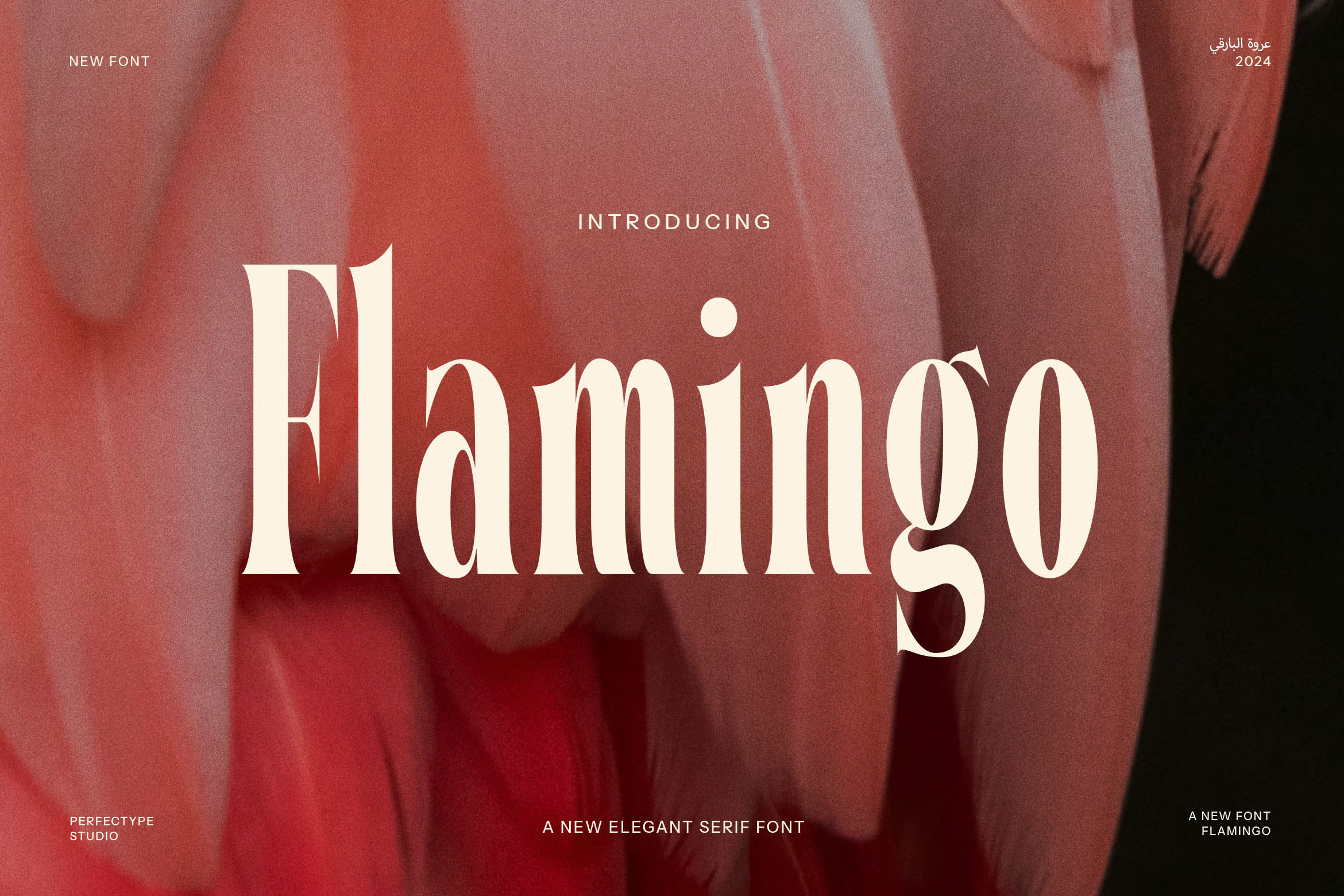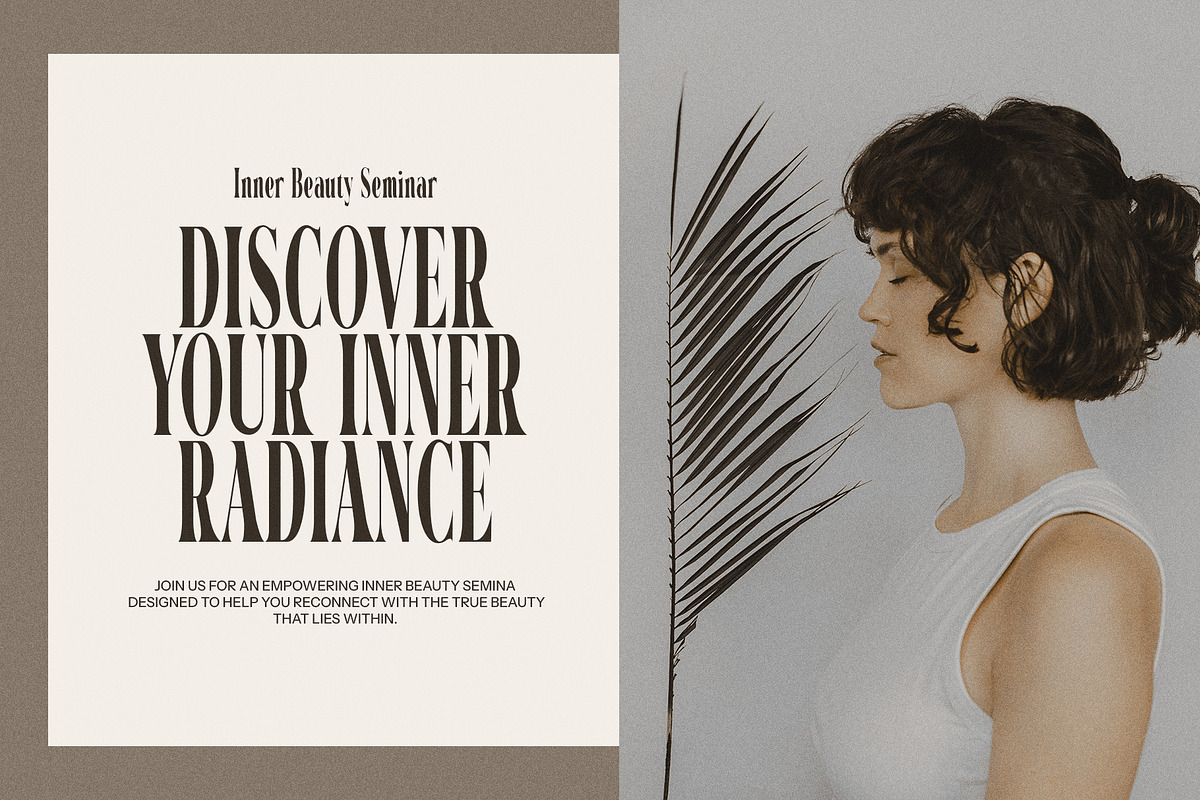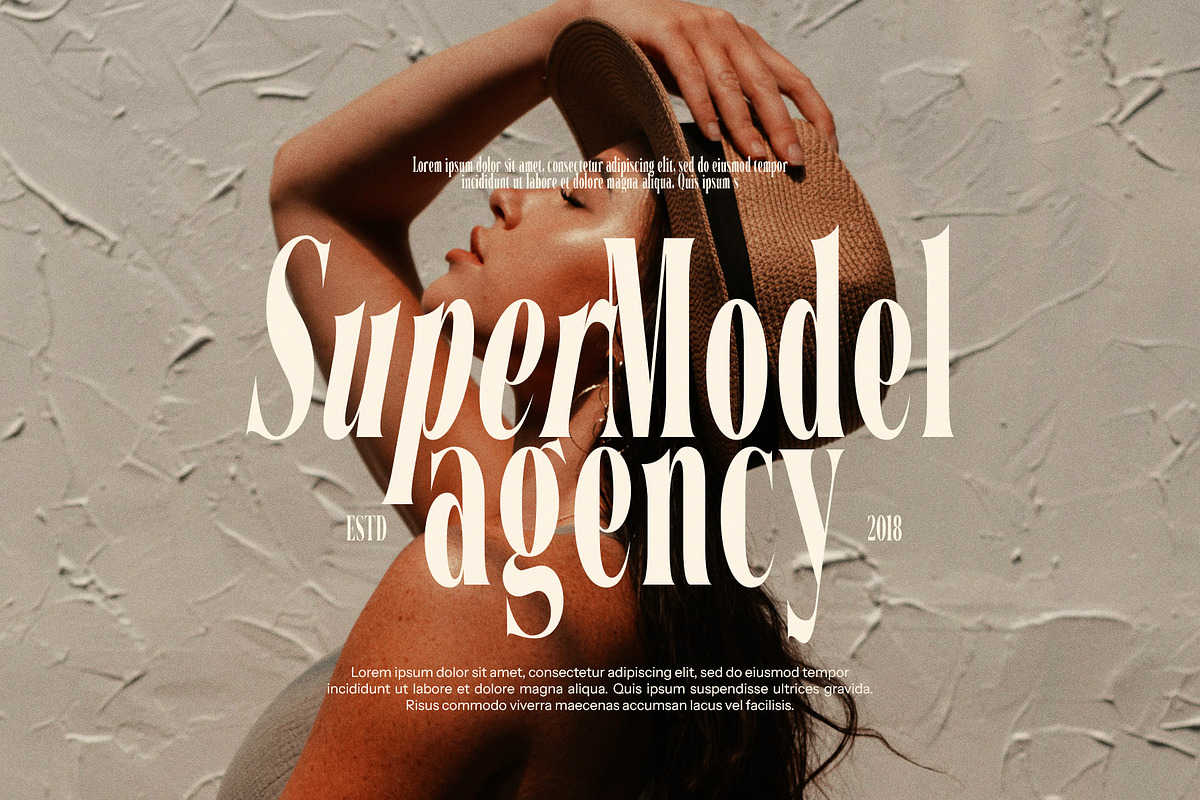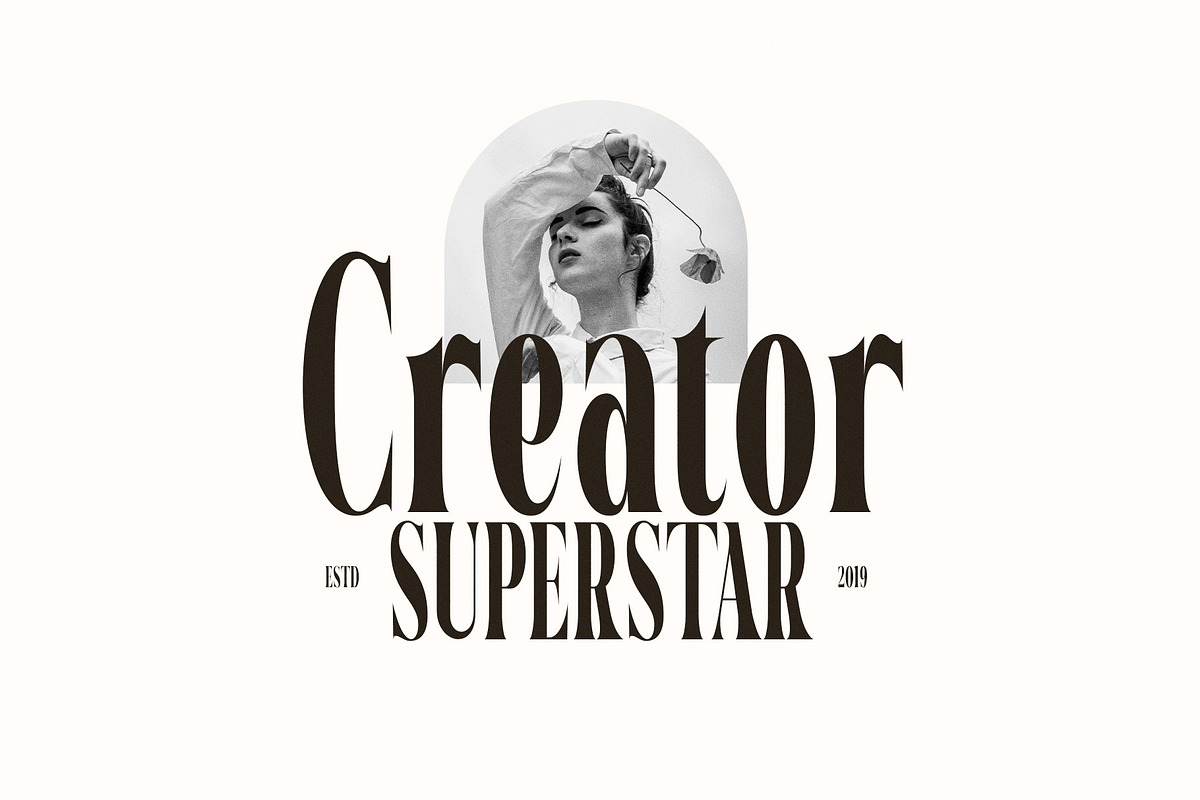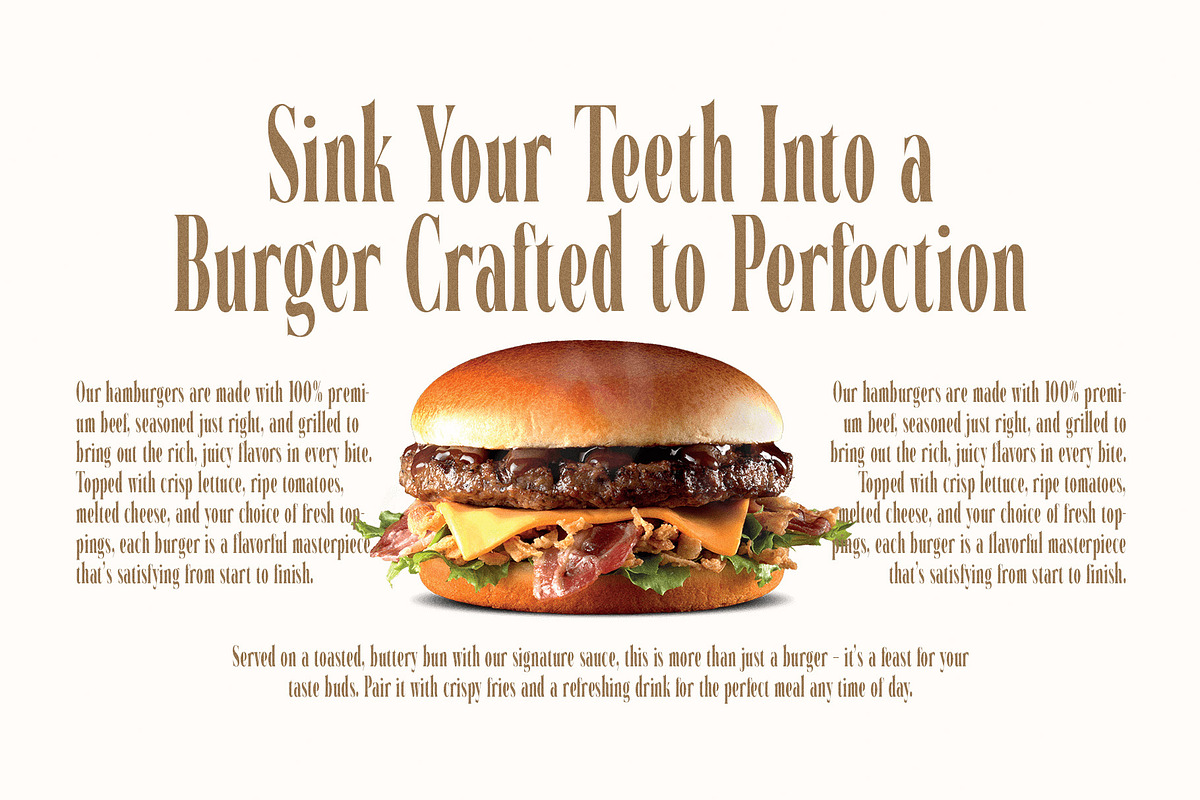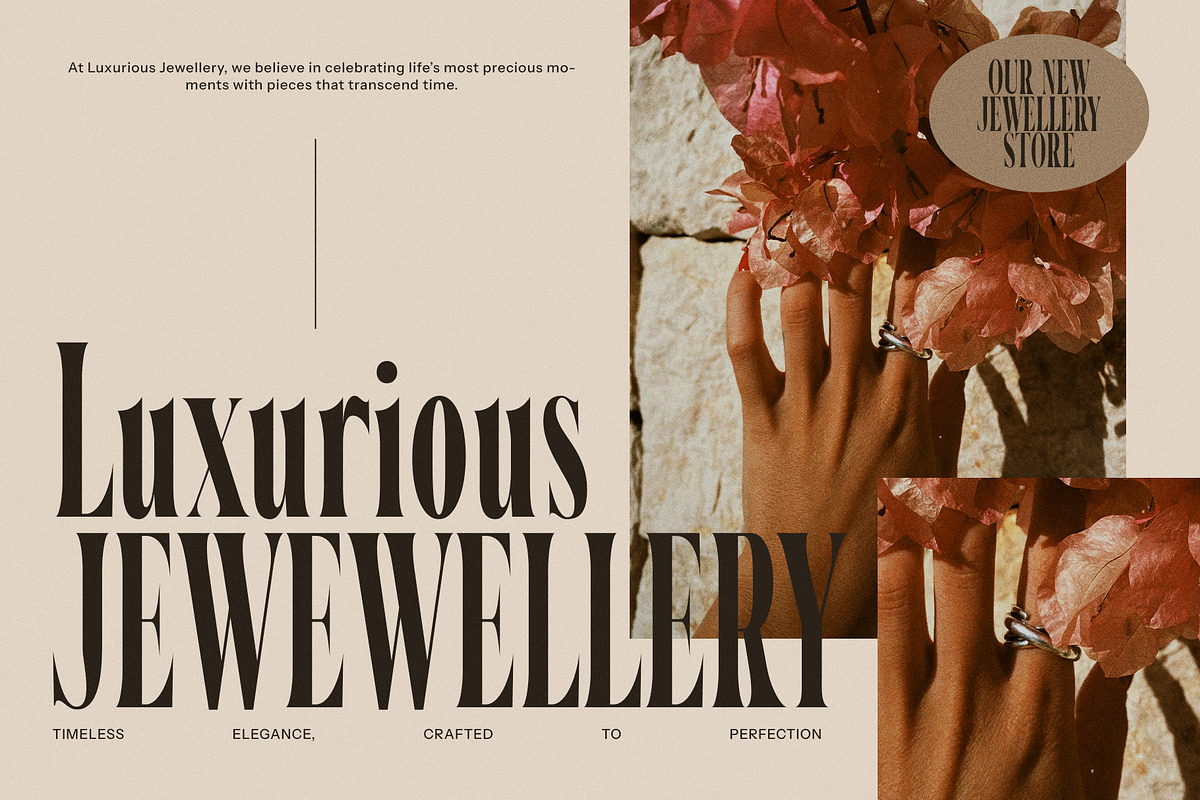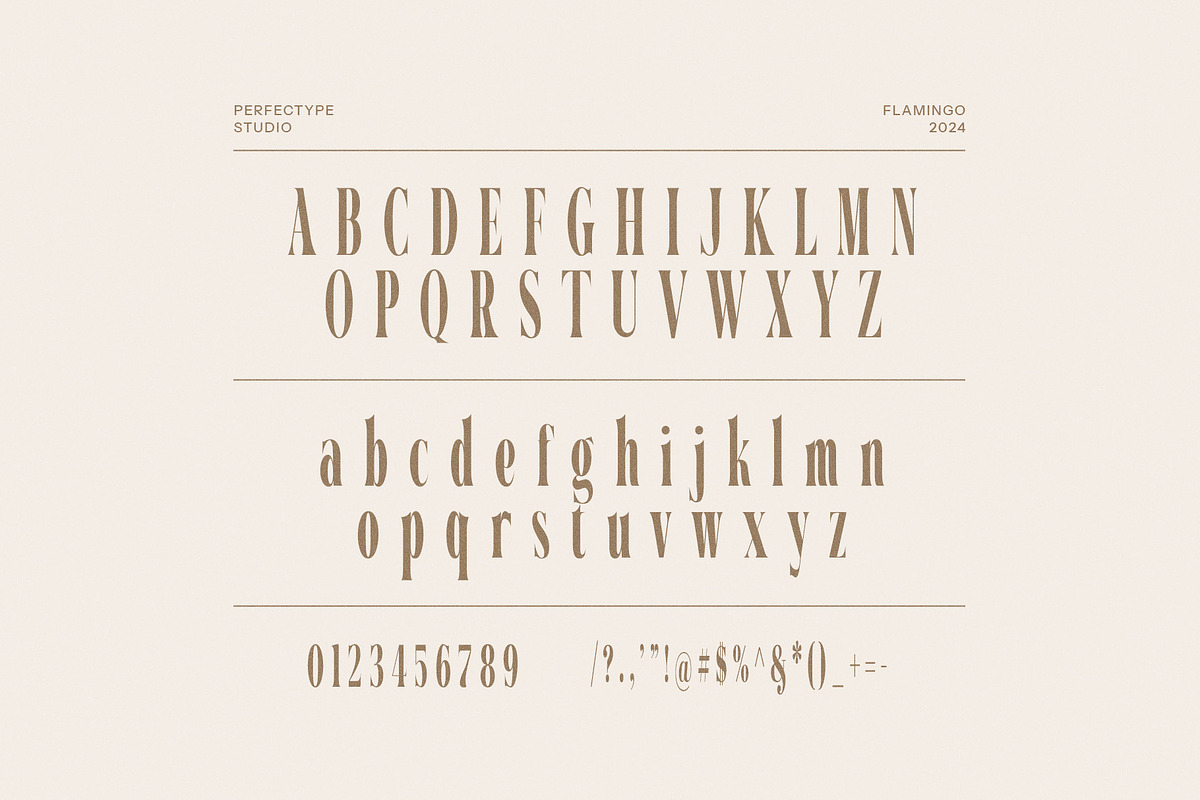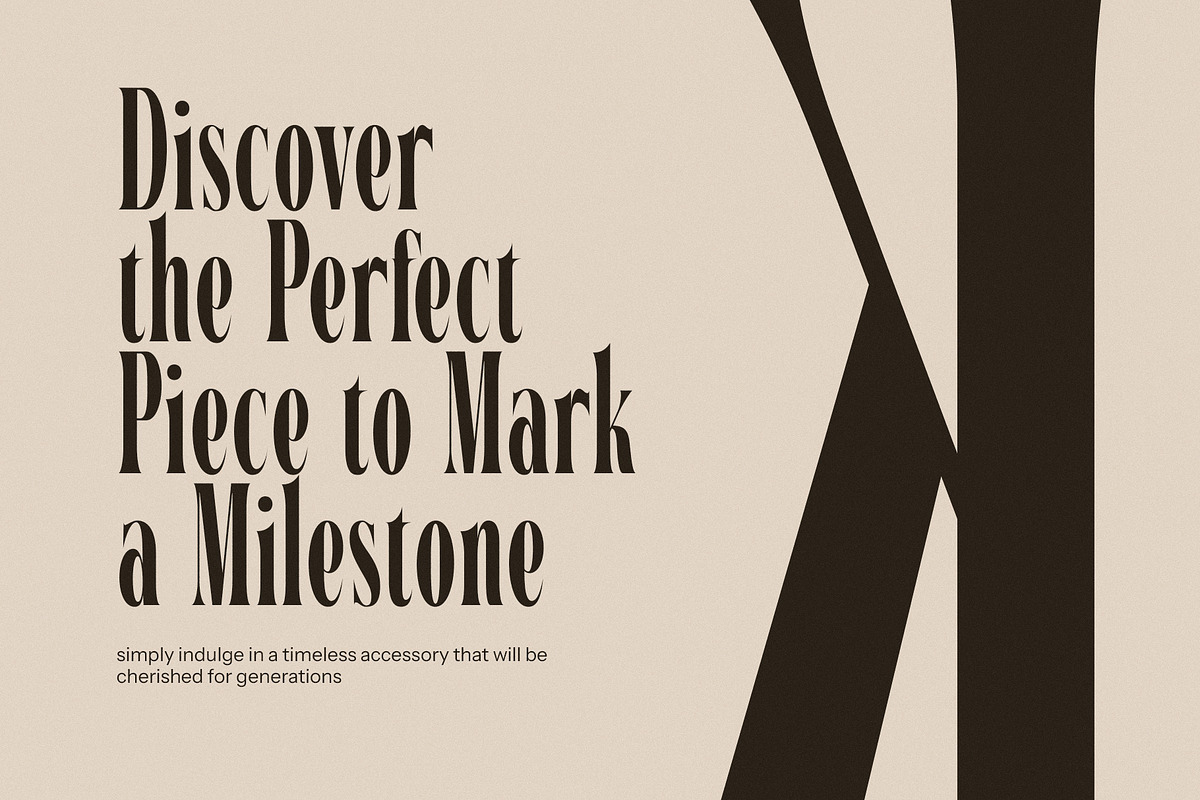
Flamingo Elegant Serif Font
Flamingo Elegant Serif Font – A Timeless Blend of Vintage Elegance and Modern Sophistication
Introducing Flamingo Elegant Serif Font, a beautifully crafted typeface that combines modern style with vintage charm. With its unique elongated shape and pointed serifs, this font brings a sophisticated and distinctive touch to any project. Designed with elegance in mind, Flamingo is the perfect choice for projects that require both style and readability. Its refined, high-contrast details and graceful lines make it ideal for logos, branding, websites, magazines, advertisements, and more.
The elongated structure and pointed ends of the Flamingo Elegant Serif Font make it stand out as a unique and highly stylized serif font. Its vintage-inspired design adds a touch of nostalgia and luxury, while its clean lines ensure modern legibility. Whether you are designing for luxury brands, boutiques, food packaging, or editorial layouts, Flamingo brings a sense of refinement and elegance to every letterform.
Ideal for both print and digital media, Flamingo Elegant Serif is incredibly versatile. It works beautifully for headlines, subheadings, and body text, ensuring your content remains clear and impactful. This font is particularly well-suited for high-end projects, branding materials, advertisements, and more.
Make a lasting impression with Flamingo Elegant Serif Font. Its timeless elegance, vintage appeal, and modern versatility make it a must-have for designers seeking to elevate their projects with a refined, classic look. Perfect for any design that requires a touch of luxury and sophistication.